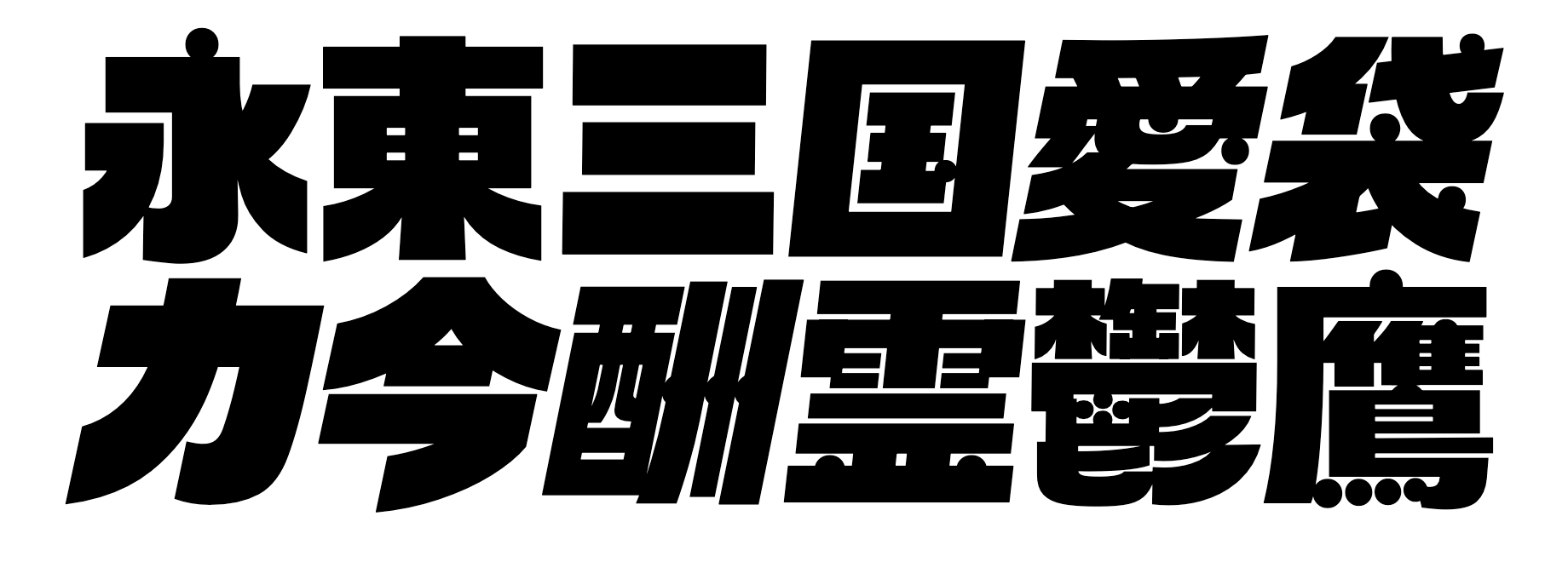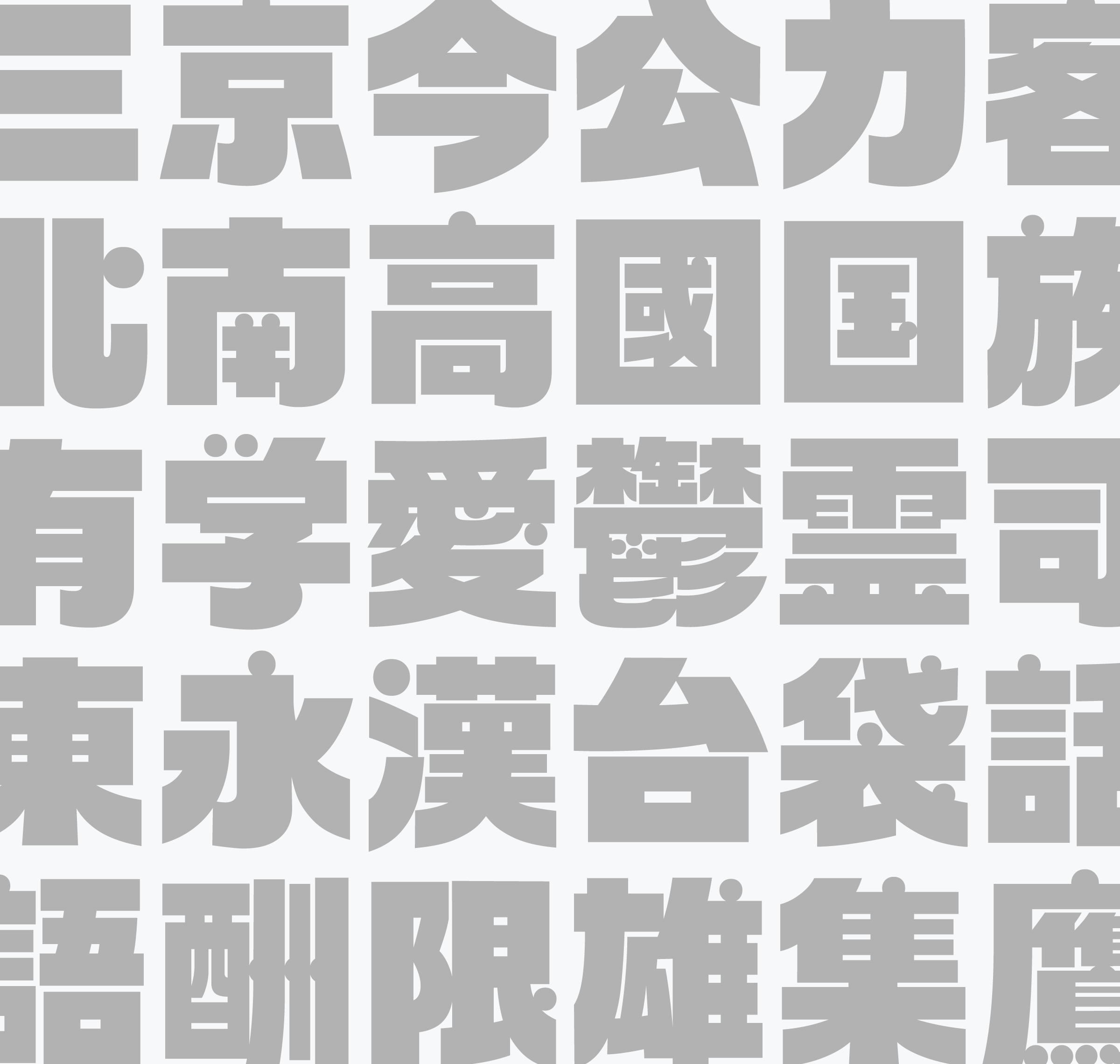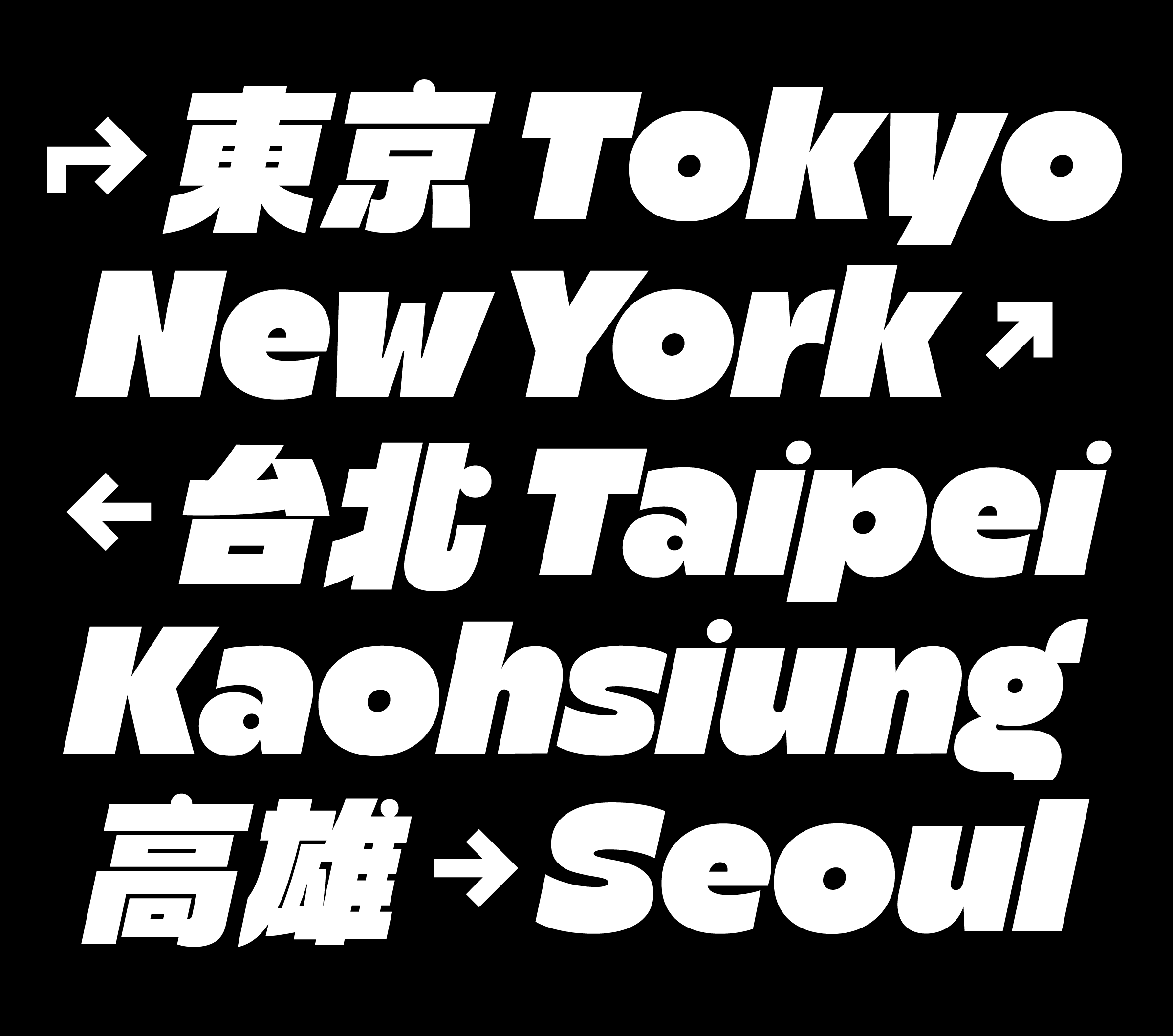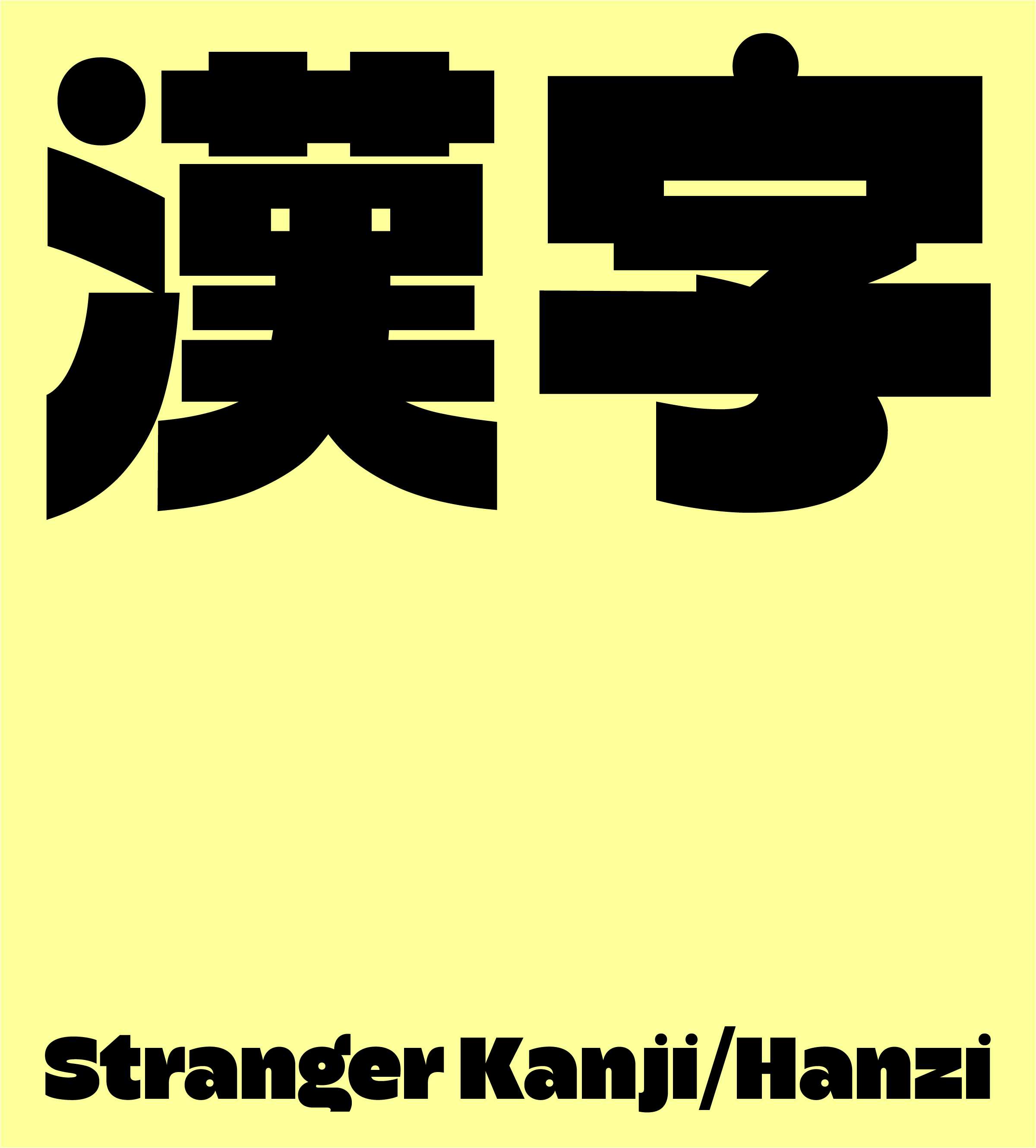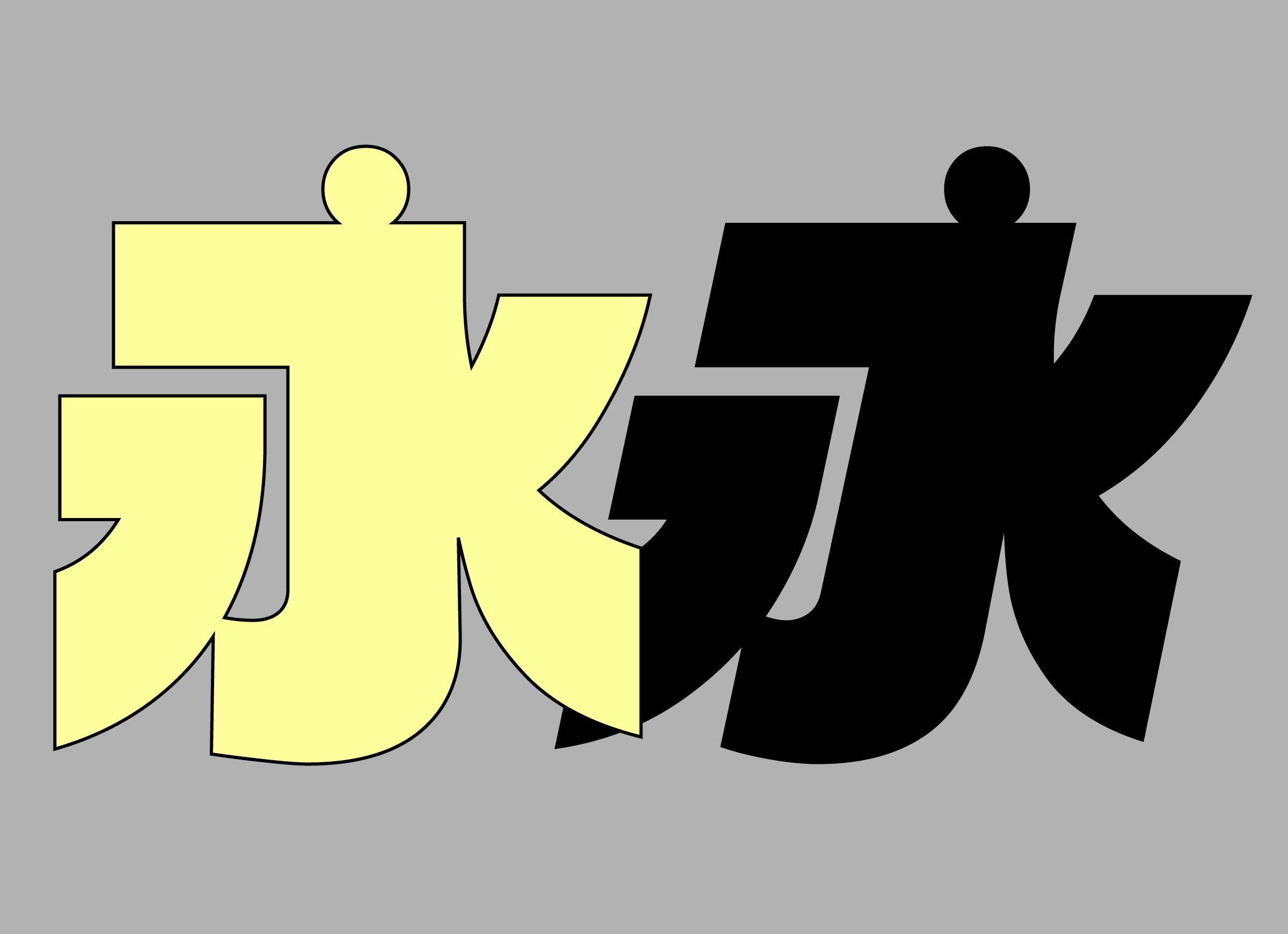
Stranger began as a lettering sketch in 2017, then developed into an early font version in 2019. It remained unpublished for years before being thoroughly redrawn and expanded into its current release. It is also the typeface behind the Typeji logo, so in a way, Stranger has long been part of the studio.
Stranger has an ultra-black display presence that feels both dense and playful. Its texture comes from the contrast between heavy outer strokes and finer inner lines, a structure that gives the design weight without making it feel blunt. Small circular dots and accent marks, loosely inspired by Gill Kayo, bring a friendly note to its otherwise solid forms. That rounded quality also appears in the counters of letters like ‘a’ and ‘&’, softening the overall impression further.
Although Stranger is playful in tone, its terminals are cut in a clean and steady way throughout: horizontal and vertical in the roman, and parallel to the angle in the italic. This helps the design stay stable and clear despite its weight, making it especially well suited for wordmarks.
Stranger now spans roman and italic styles, along with a variable font that moves between them, as well as broader language support including Vietnamese and Taiwanese Romanization.
ss01Single Storey ‘a’
ss02Single Storey ‘g’